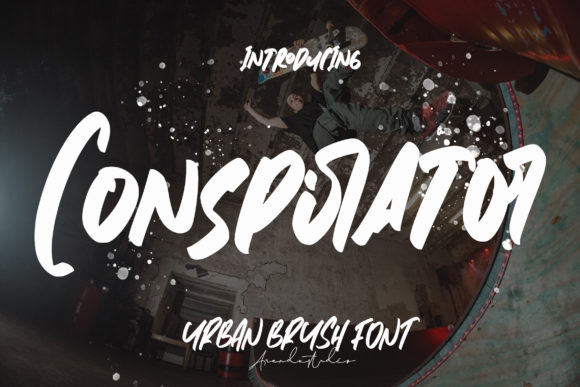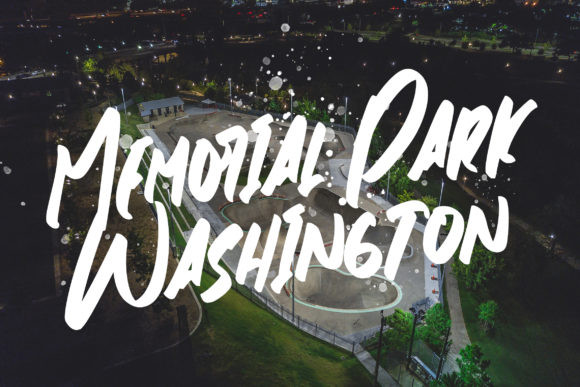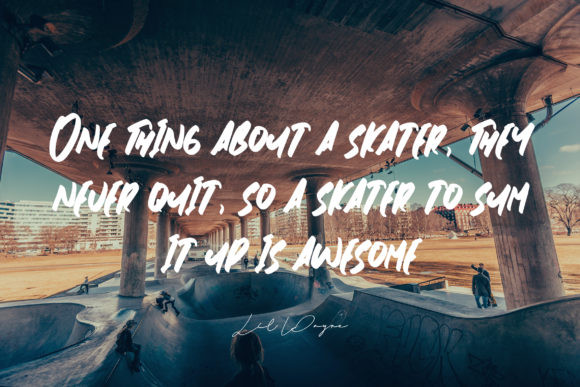
Conspirator Font
Conspirator is a bold lettered, urban styled display font. No matter the topic, this font will be an incredibly asset to your fonts’ library, as it has the potential to elevate any creation.